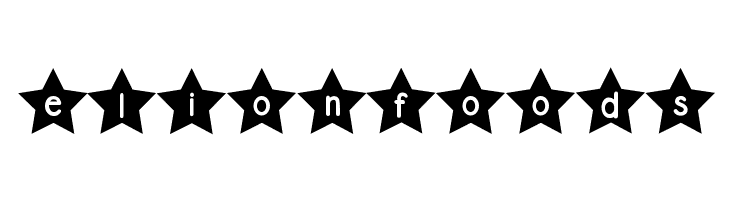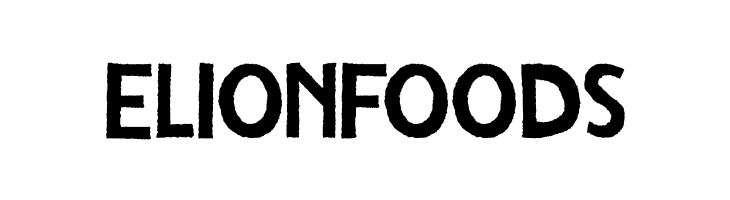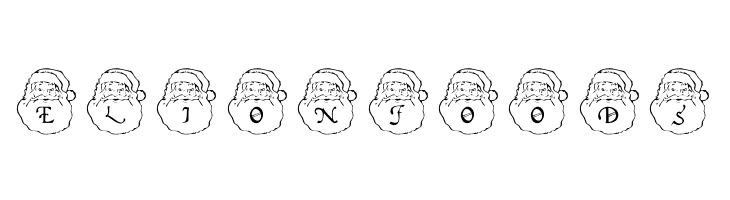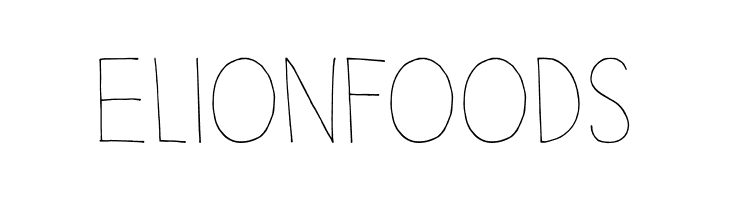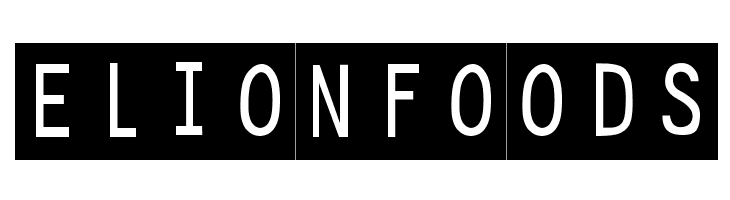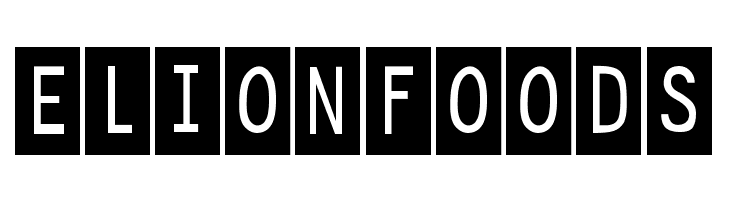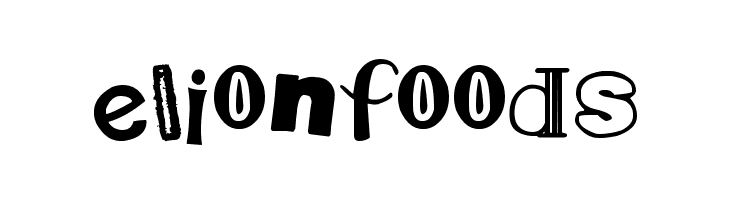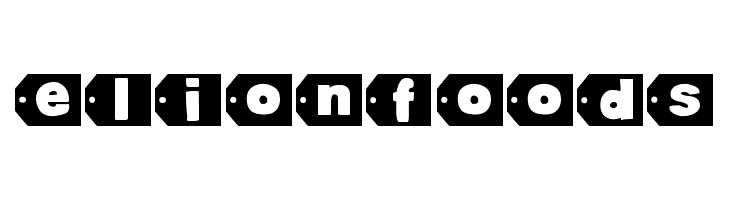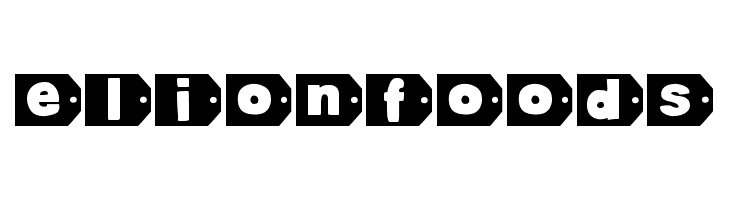
A playful, eclectic font with a mix of bold, outlined, and decorative characters.
A decorative font with characters inside bold star shapes.
A bold, sans-serif font with a modern, clean, and structured appearance.
A bold, geometric font with characters enclosed in squares, offering a modern and structured appearance.
A bold, modern sans-serif font with clean lines and excellent readability.
A bold, decorative font with characters enclosed in tag-like shapes.
A bold, hand-drawn font with a dynamic and slightly distressed appearance.
A whimsical, hand-drawn font with tall, slender characters and a playful style.